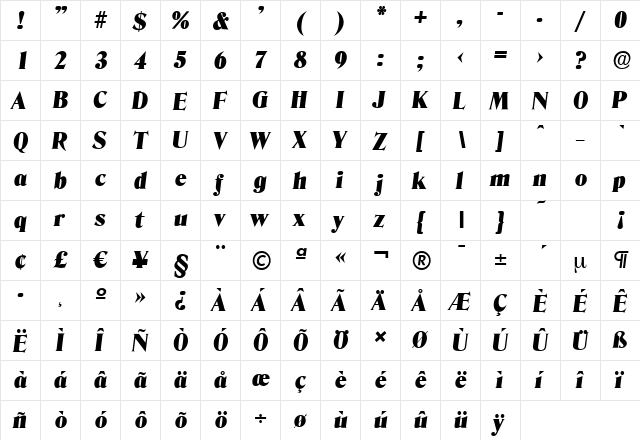
DenverSerial-Black Italic
Design Context for DenverSerial-Black Typeface
DenverSerial-Black offers clean, dependable letterforms without strong stylistic allegiance, making it a practical choice for designers who need flexibility. The slanted form adds forward momentum and visual energy.
Pro Tip: Try DenverSerial-Black for annotation and caption copy alongside an upright companion — the contrast in angle creates a dynamic but ordered typographic system.